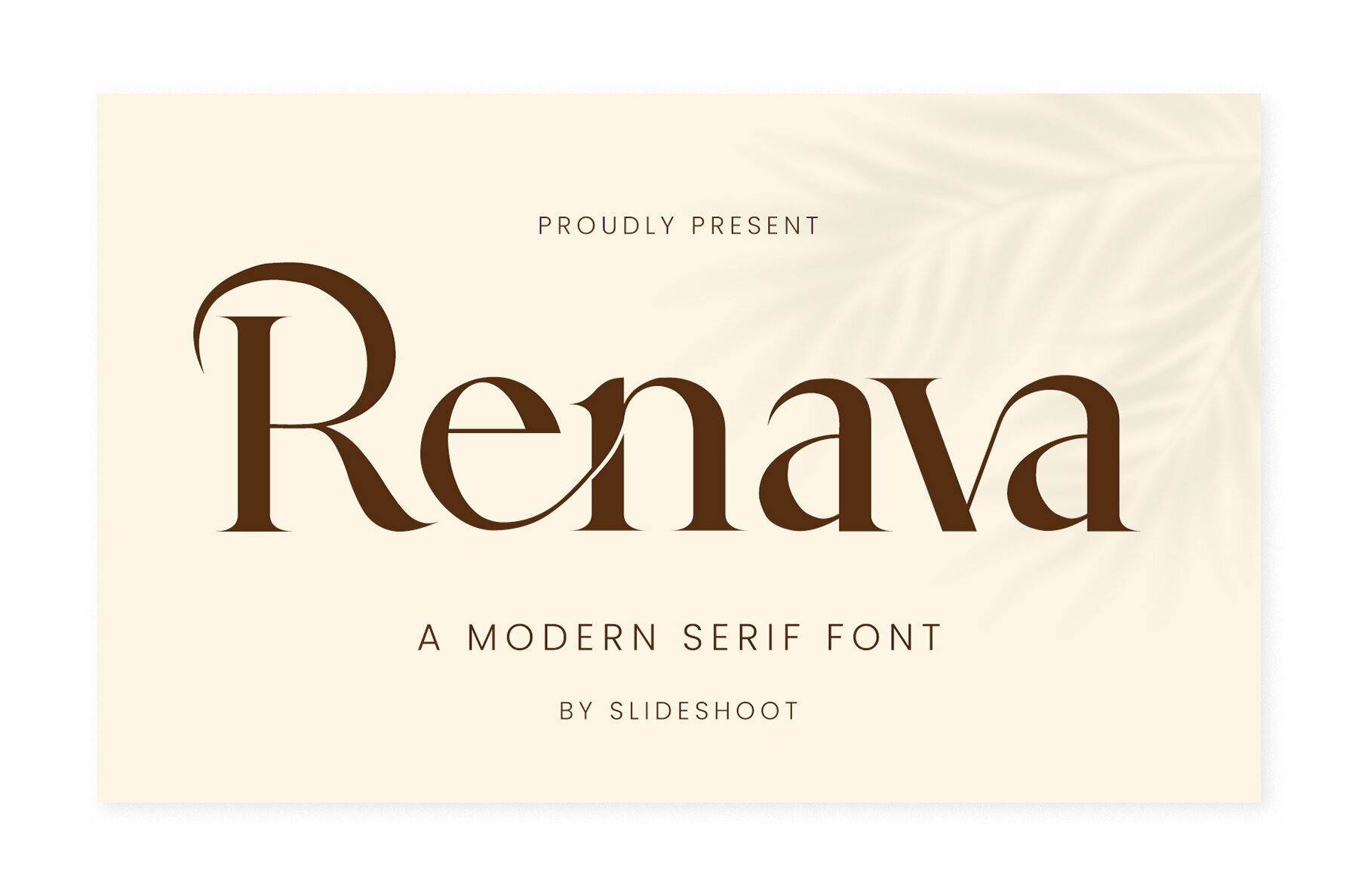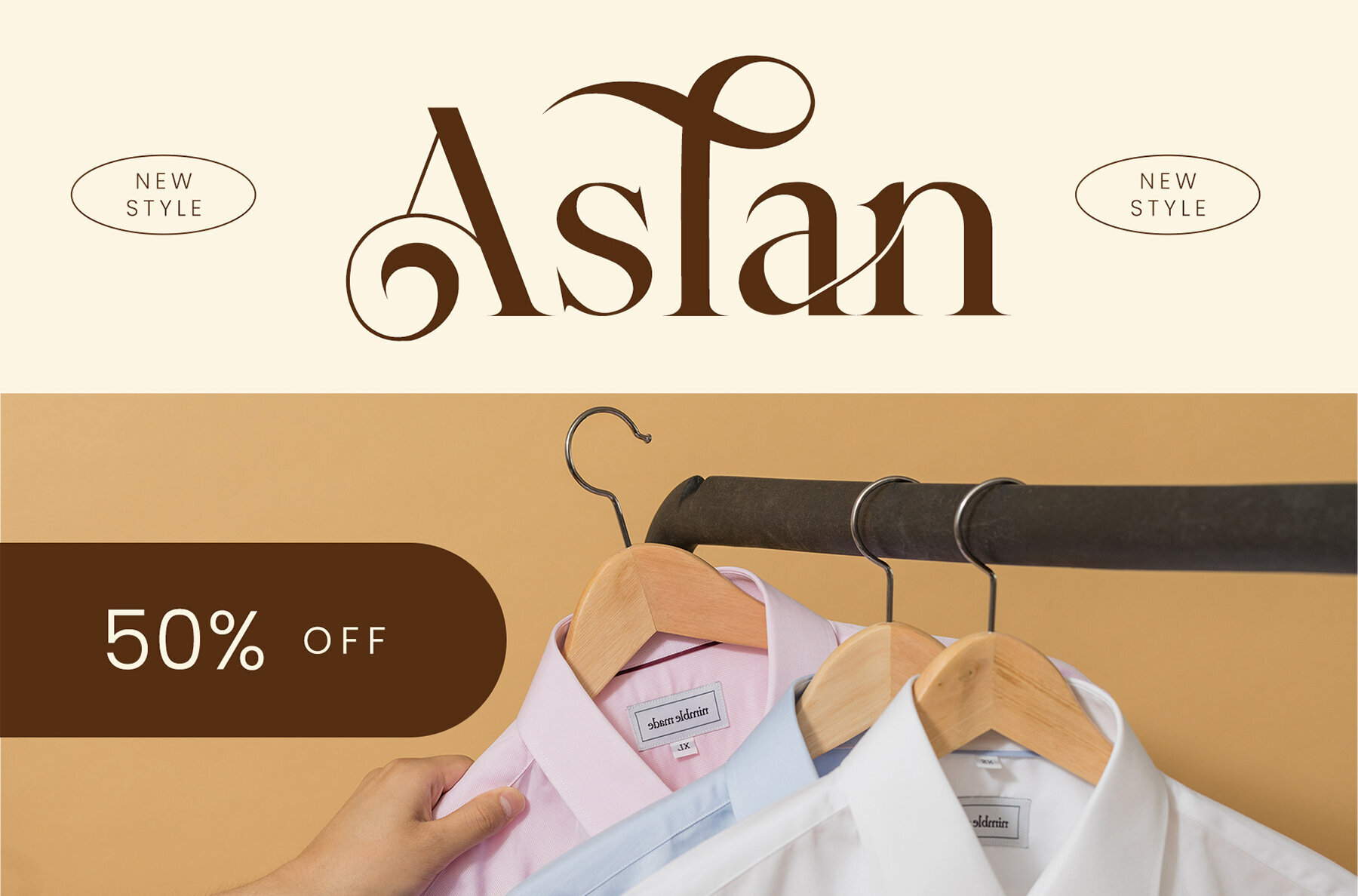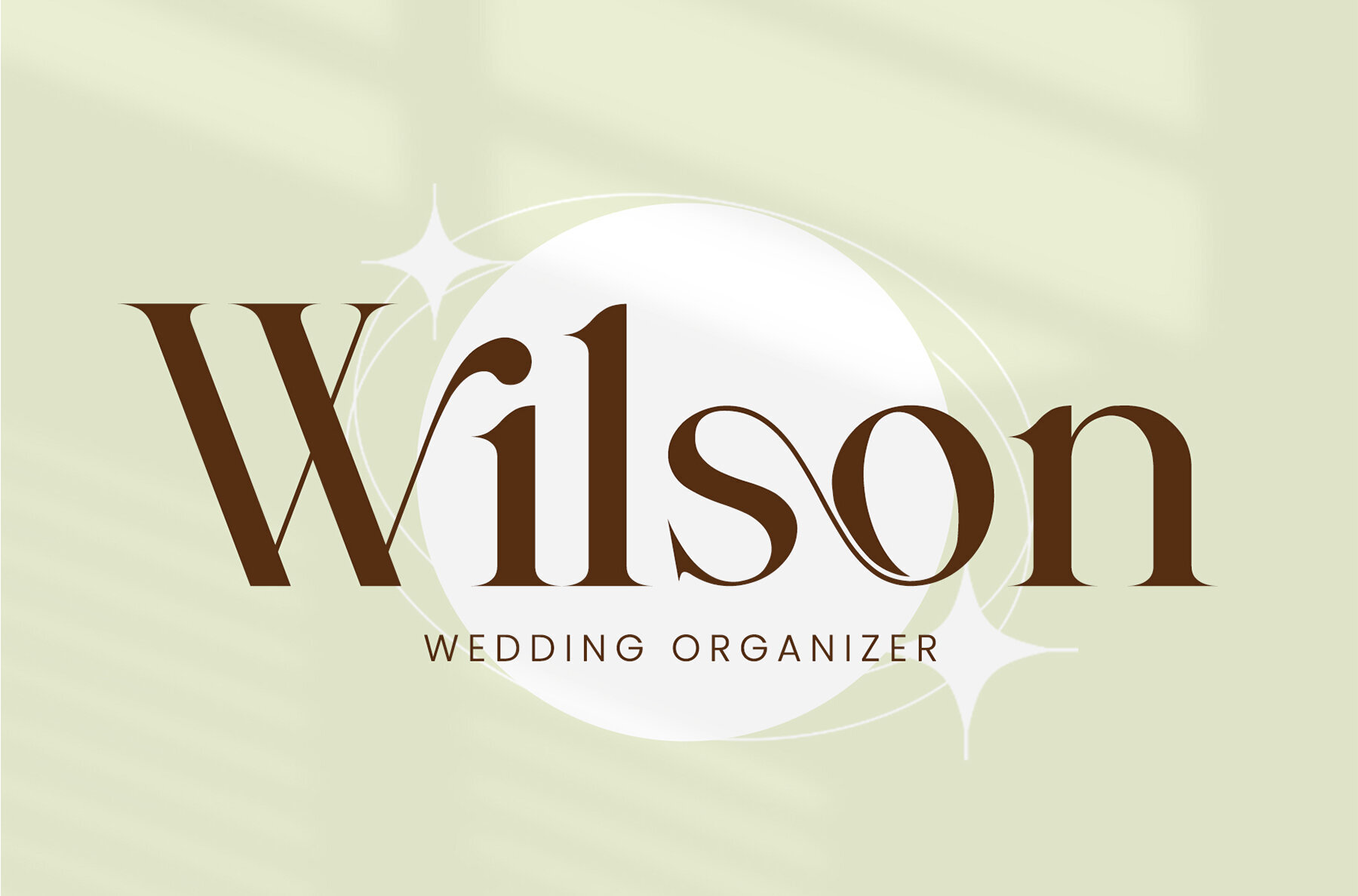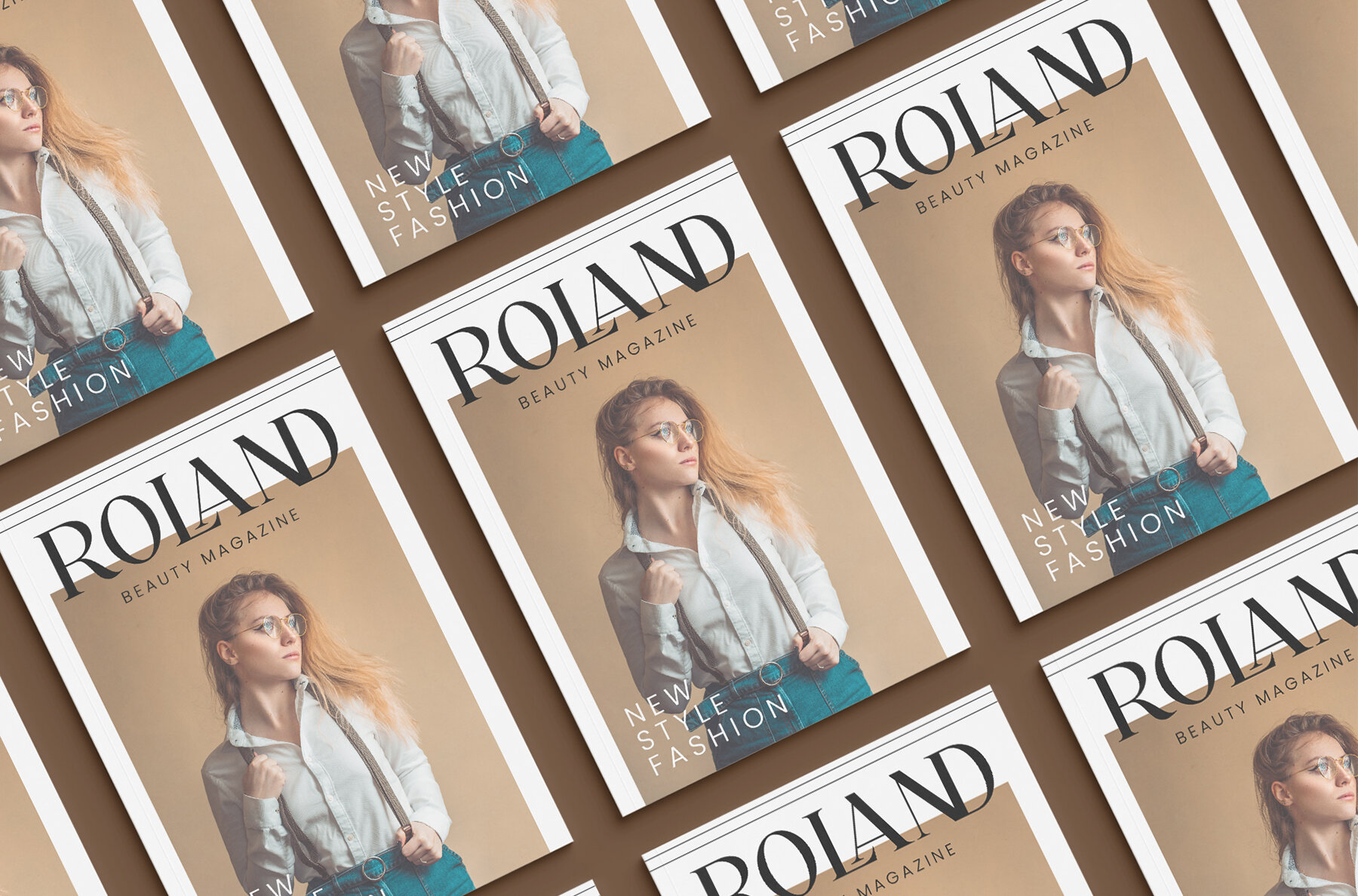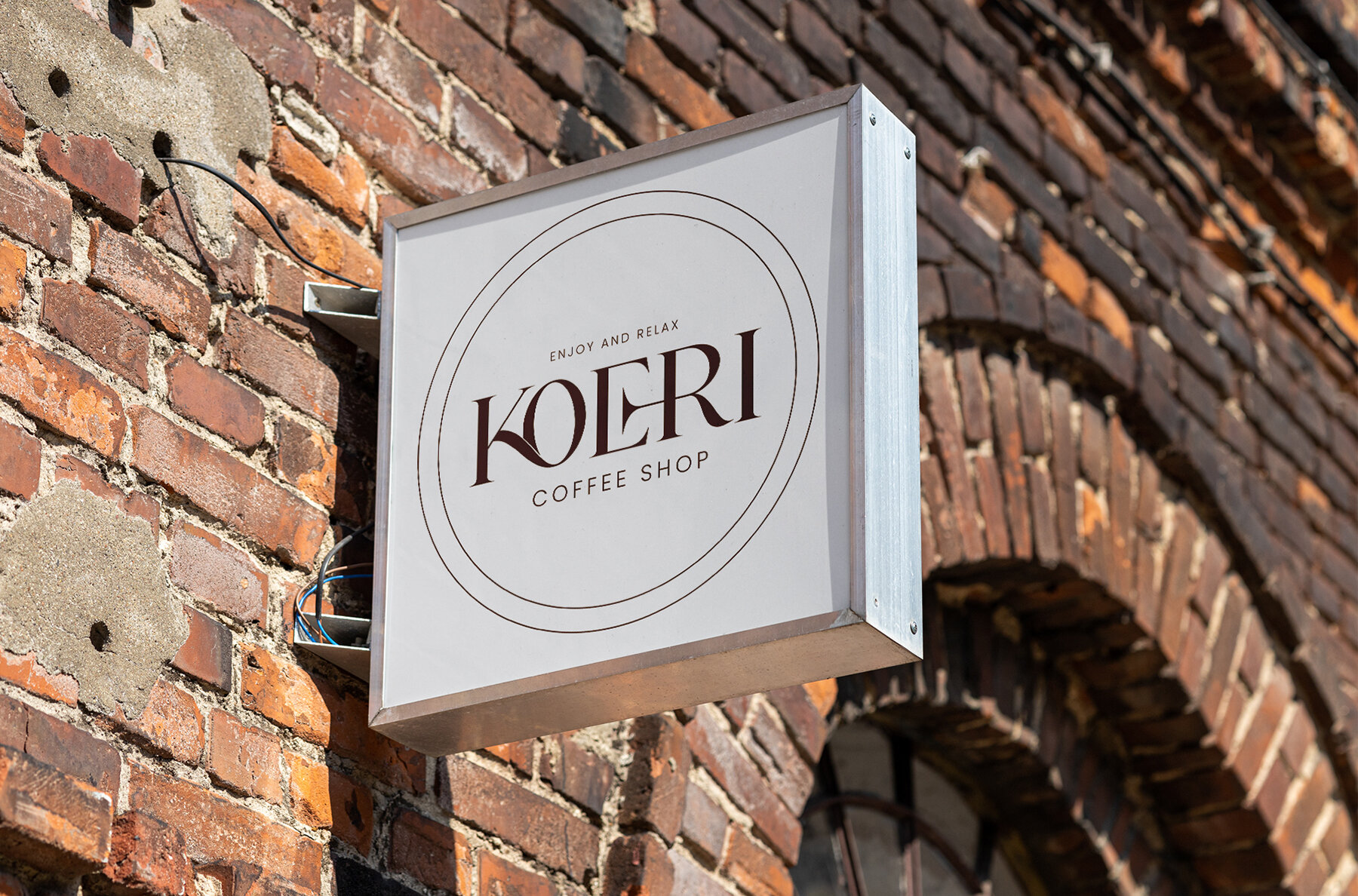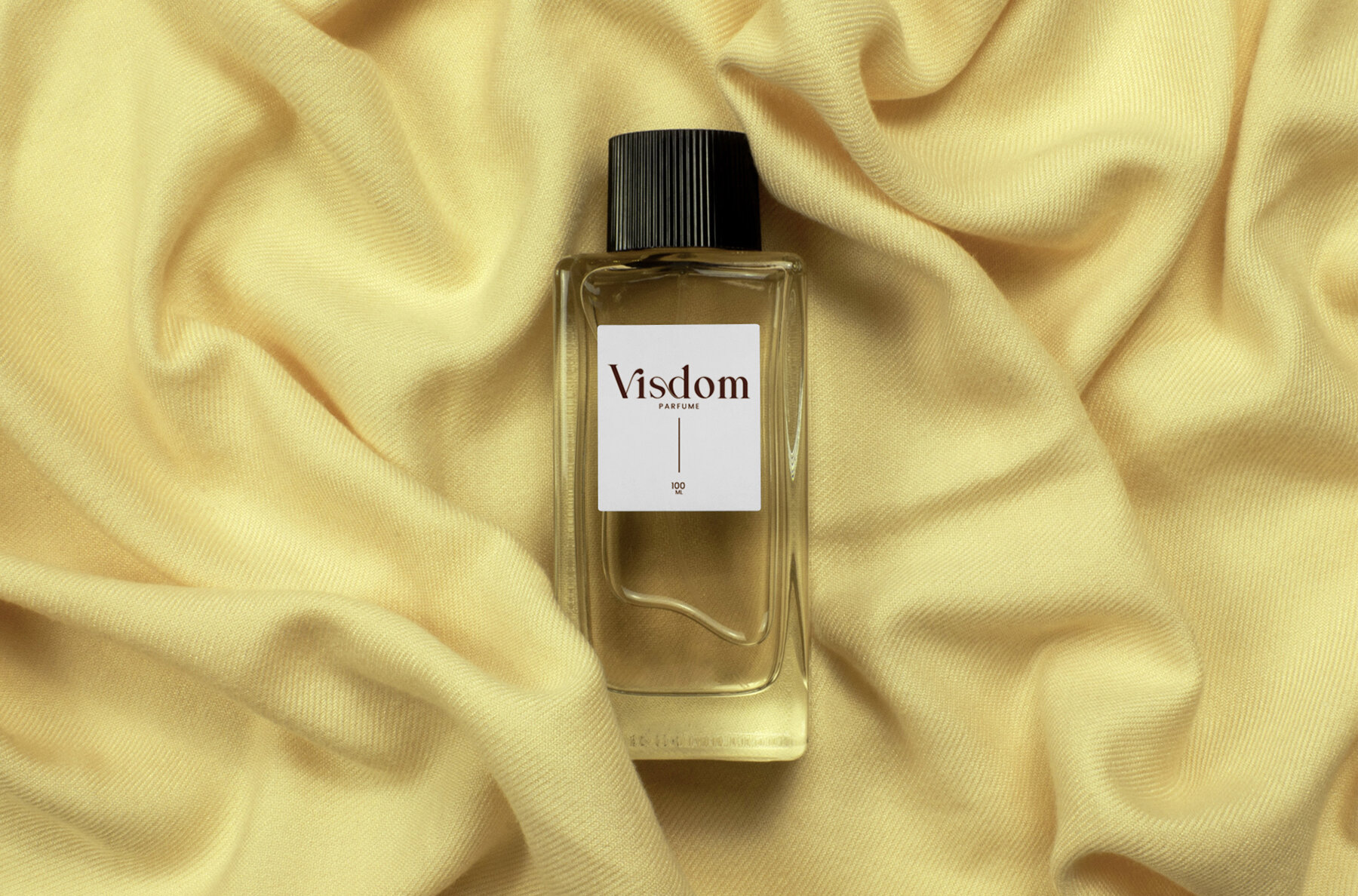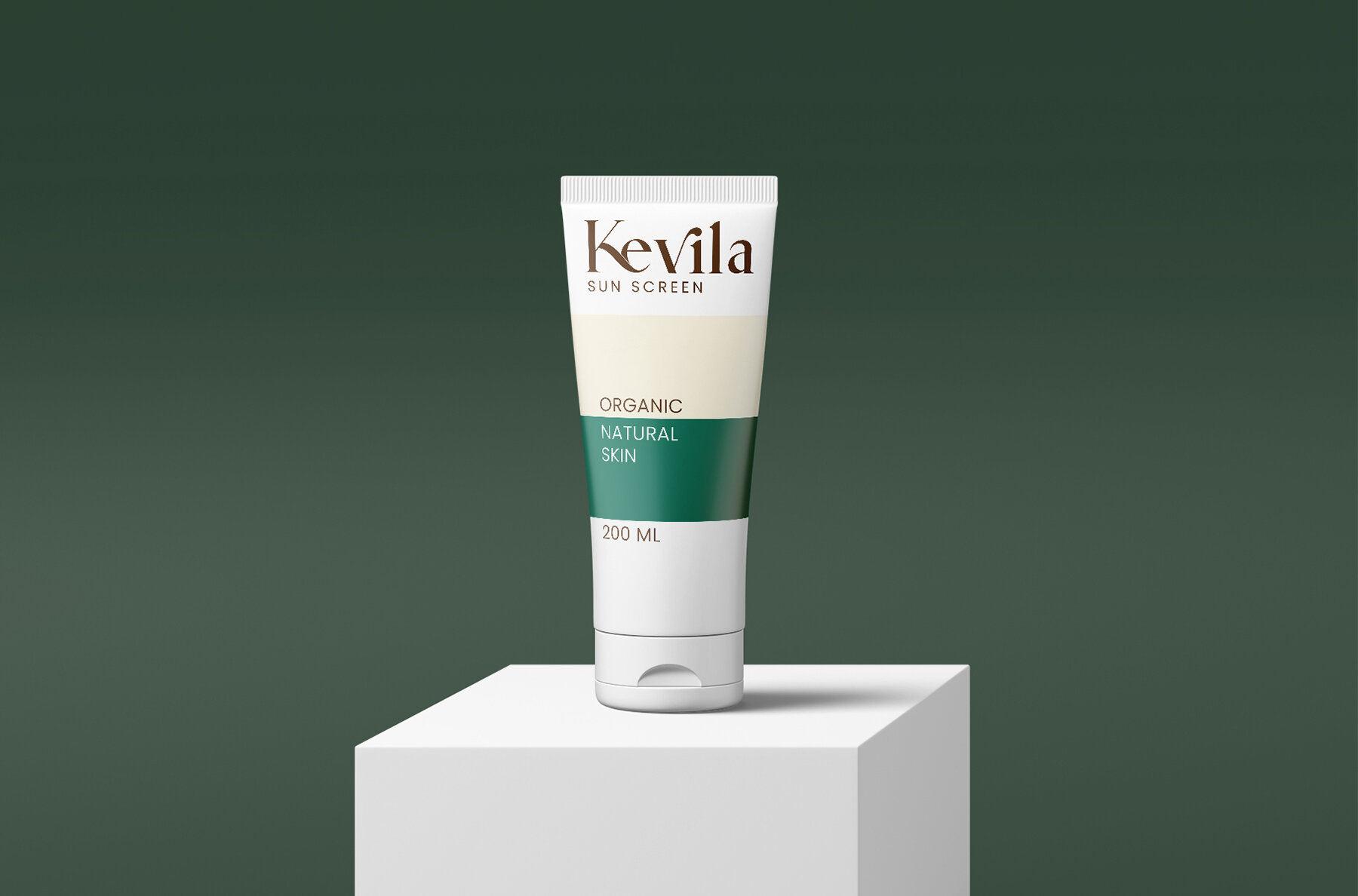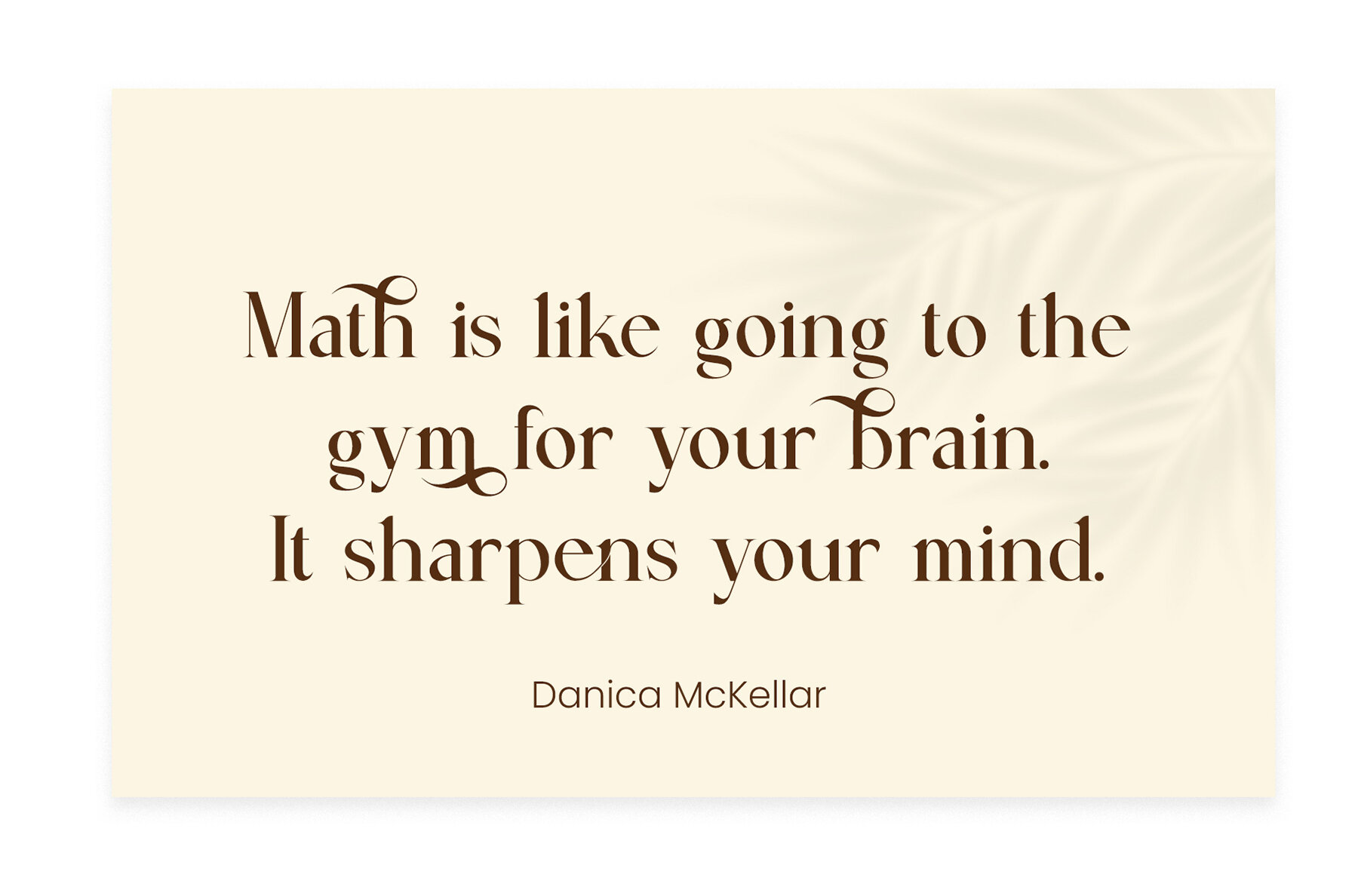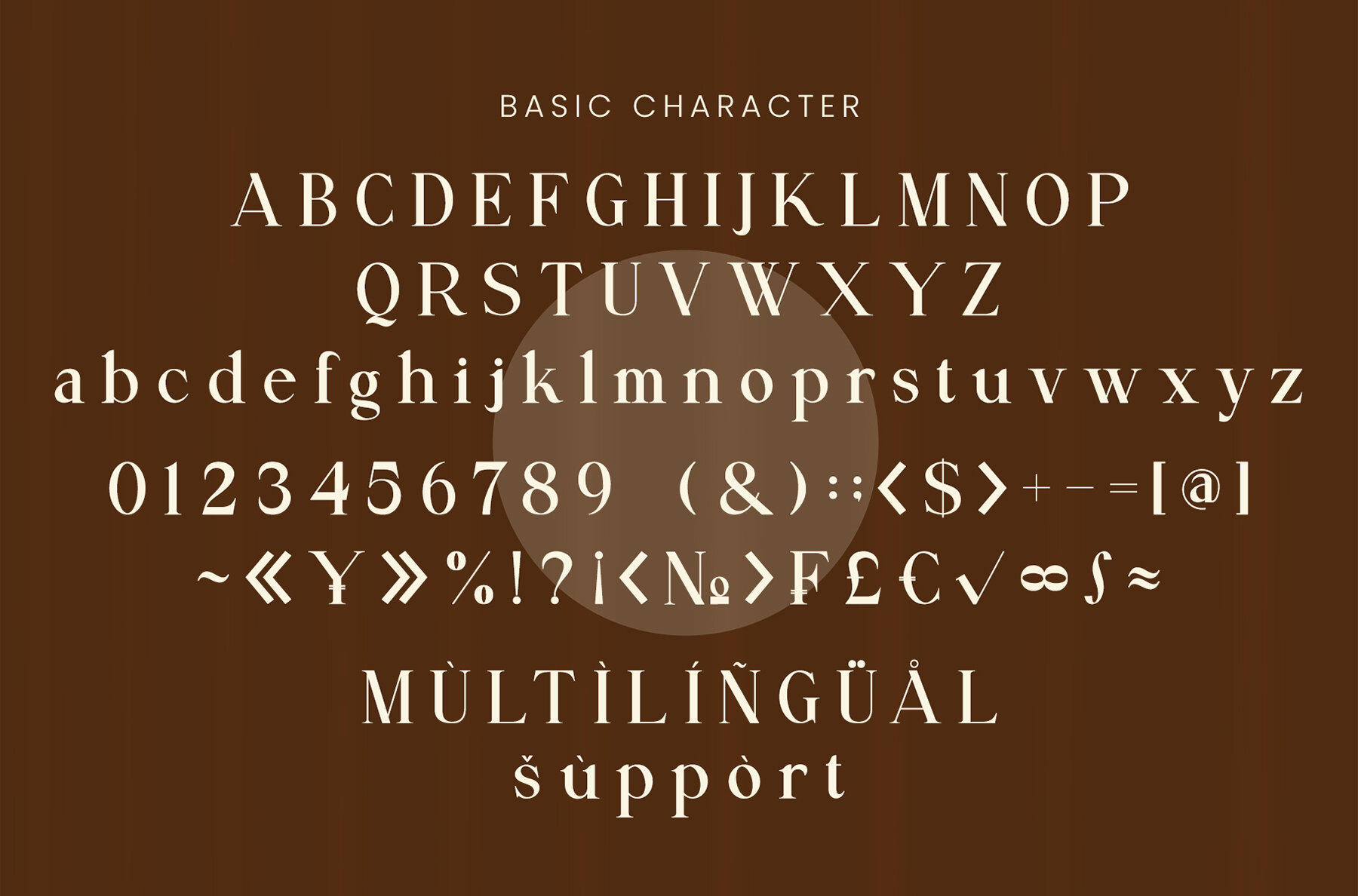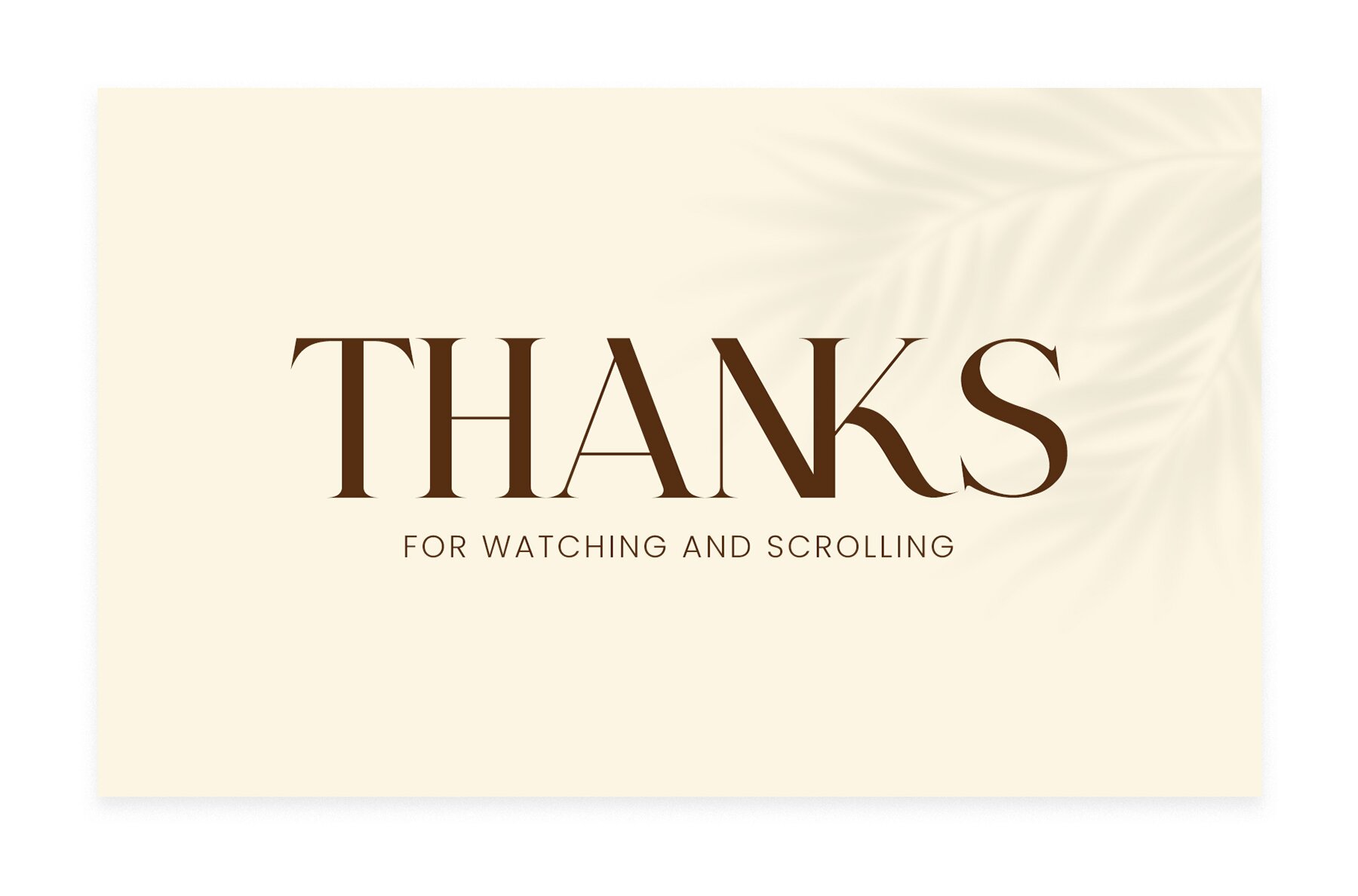
Renava Font
Renava Regular
Renava Serif is a balanced and elegant serif font, designed to bring sophistication to your design projects. With its smooth, stylish characters, Renava fits perfectly with invitation card designs, company logos, movie titles, business cards, book titles, brand names, and more.Renava Serif: Elegance in Typography